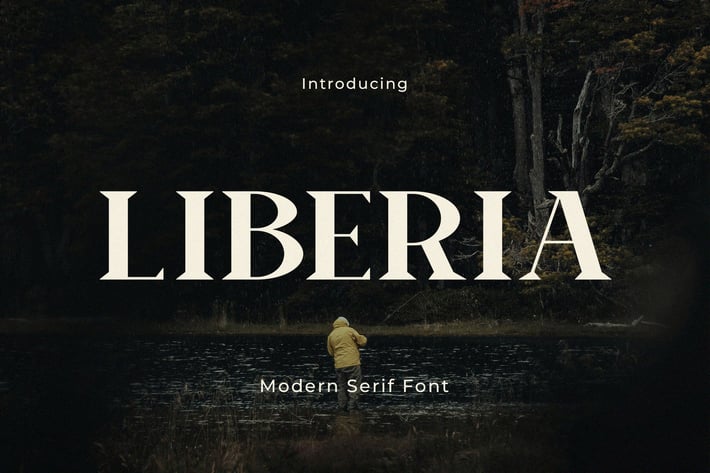
Liberia - Modern Serif Font
Liberia is a modern serif font that embodies the perfect balance between classic elegance and contemporary design. Its clean lines, refined curves, and balanced proportions create a timeless aesthetic that is both sophisticated and inviting. Whether you're designing a high-end logo, crafting a beautiful wedding invitation, or creating a minimalist book cover, Liberia will add a touch of sophistication and elegance to any project.